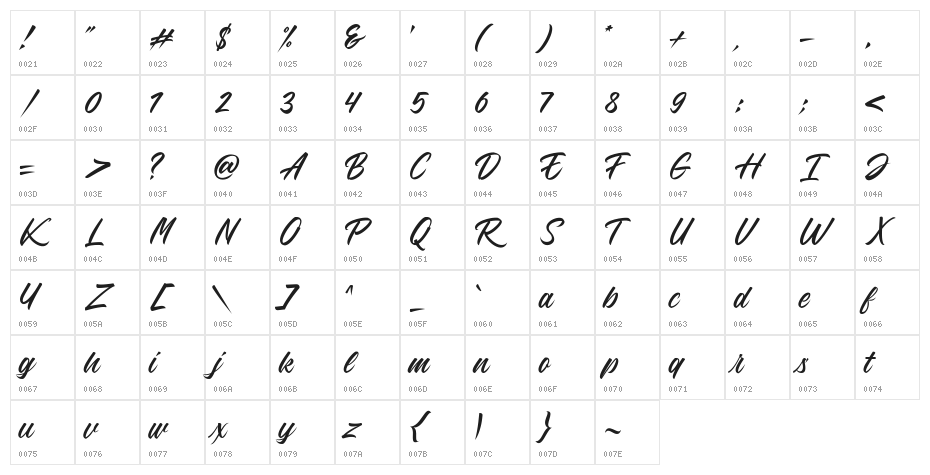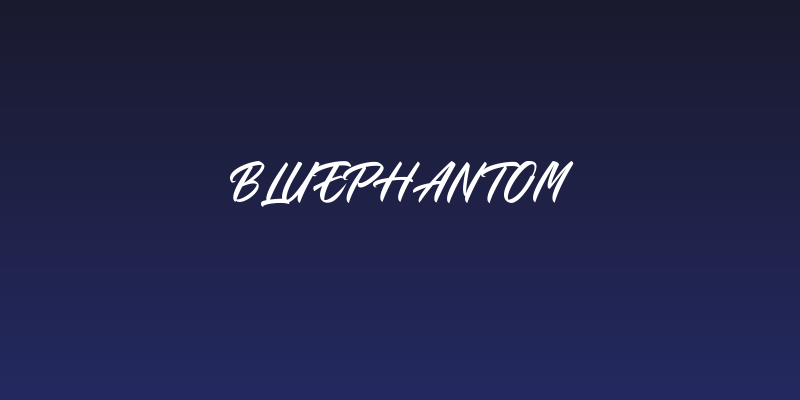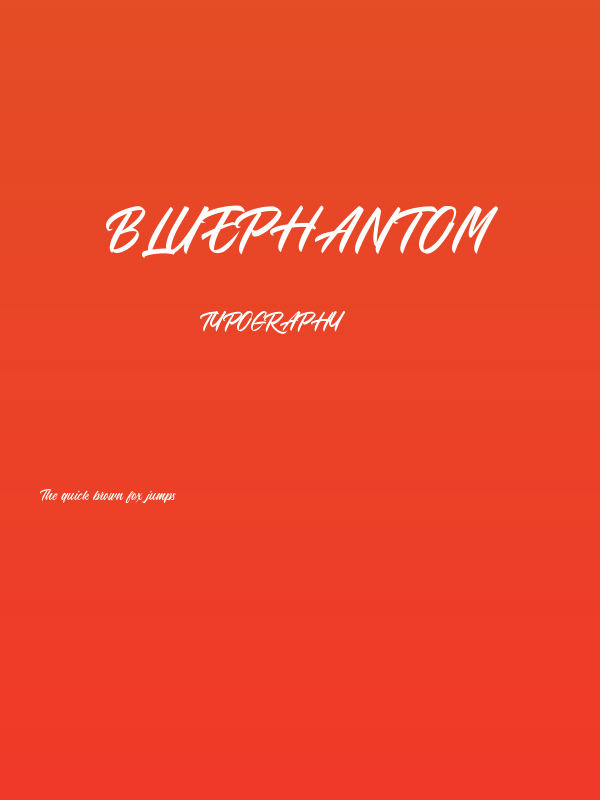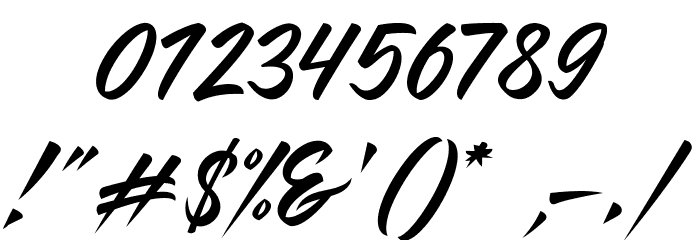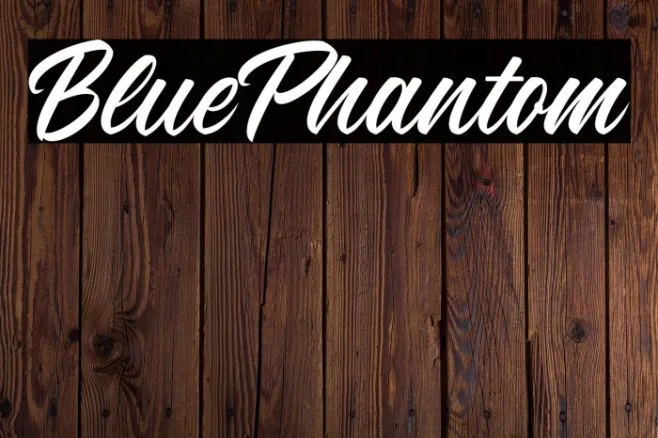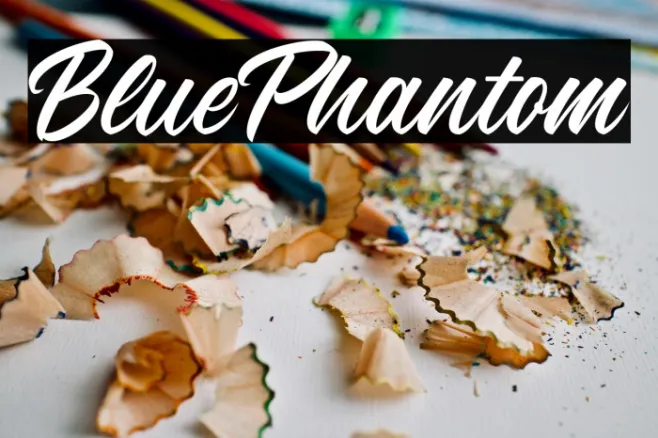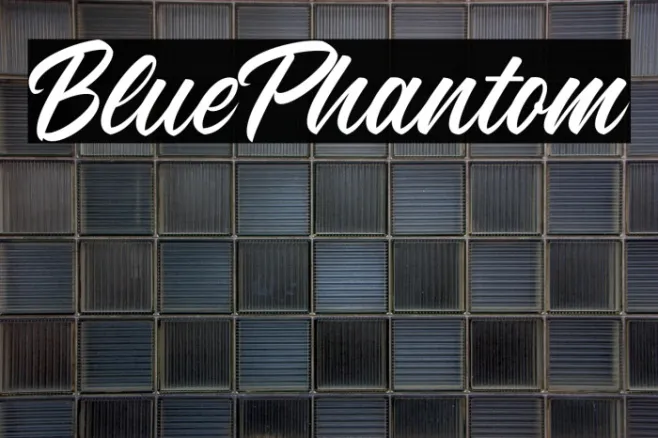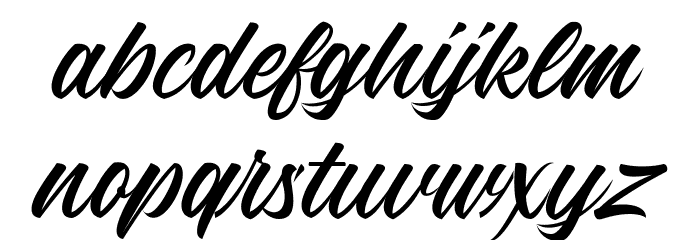
BluePhantom Font
BluePhantom Description
This font features a dynamic and flowing script style, characterized by its bold and expressive strokes. The letters are interconnected, giving a sense of movement and fluidity. The uppercase letters are slightly more elaborate, with sweeping curves and a sense of elegance, while the lowercase letters maintain a consistent rhythm and balance. The numerals are equally stylized, matching the overall aesthetic with their curved lines and artistic flair. Special characters are designed to complement the script, maintaining the same bold and fluid characteristics. This font exudes a sense of creativity and artistic expression, making it suitable for projects that require a personal and handcrafted touch.
| Proposed Projects | Ideal for branding, invitations, greeting cards, and artistic projects that require a personal touch. |